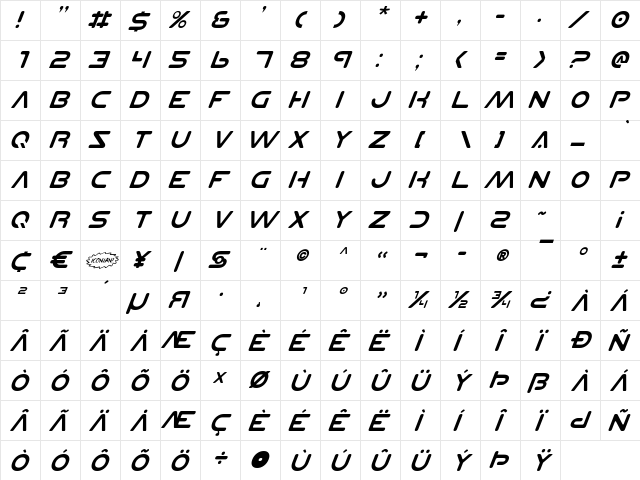
Planet N Italic
Design Context for Planet N Typeface
Planet N is a composed and adaptable typeface that performs quietly and consistently across a wide range of design contexts. Its italic angle brings a sense of urgency and motion to the letterforms.